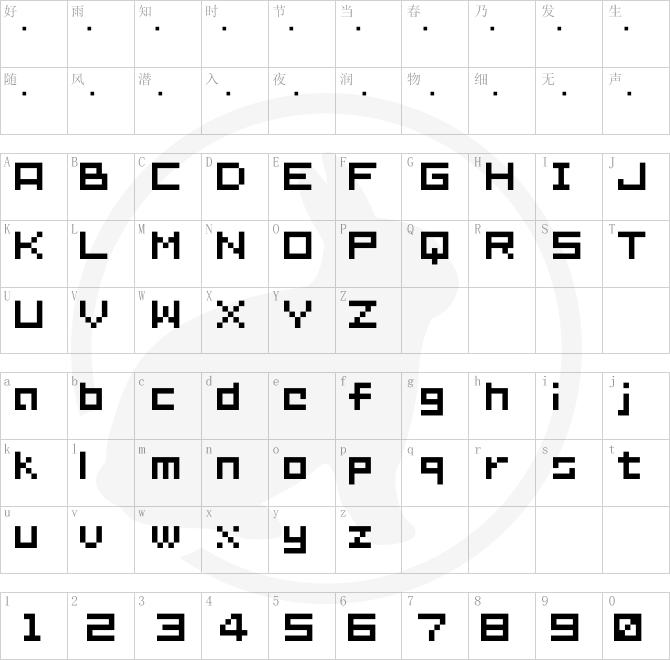
- Font Name:D3 Littlebitmapism Suquare
D3-Littlebitmapism-Suquare-1-.ttf is a very beautiful artistic font, D3-Littlebitmapism-Suquare-1-.ttf is widely used in the design and printing of various books and pictures,D3-Littlebitmapism-Suquare-1-.ttf has a strong visual impact,D3-Littlebitmapism-Suquare-1-.ttf is a commonly used font in newspapers, magazines and books, and is used in posters, e-commerce Poster design, store design, logo design, font design and other fields.D3-Littlebitmapism-Suquare-1-.